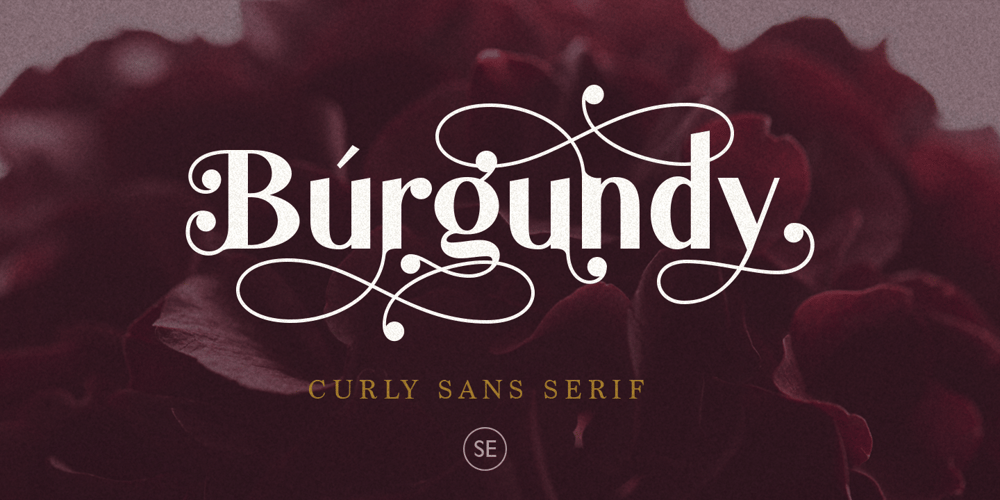
Burgundy Font Family was designed by Sarid Ezra and published by Sarid Ezra. Burgundy contains 1 styles and family package options. Introducing, Burgundy – Curly Sans Serif with a bunch of alternates!Burgundy is a sans serif based typeface that have curly and elegant looks with a bunch of alternates that will make your presentation or logo even more stunning and stand out! This font is so fit for wedding invitation or celebrations. Burgundy also support Multi Language and already PUA Encoded!Features Uppercase & Lowercase Number & Symbol Multi language Alternates for each characters PUA Encoded